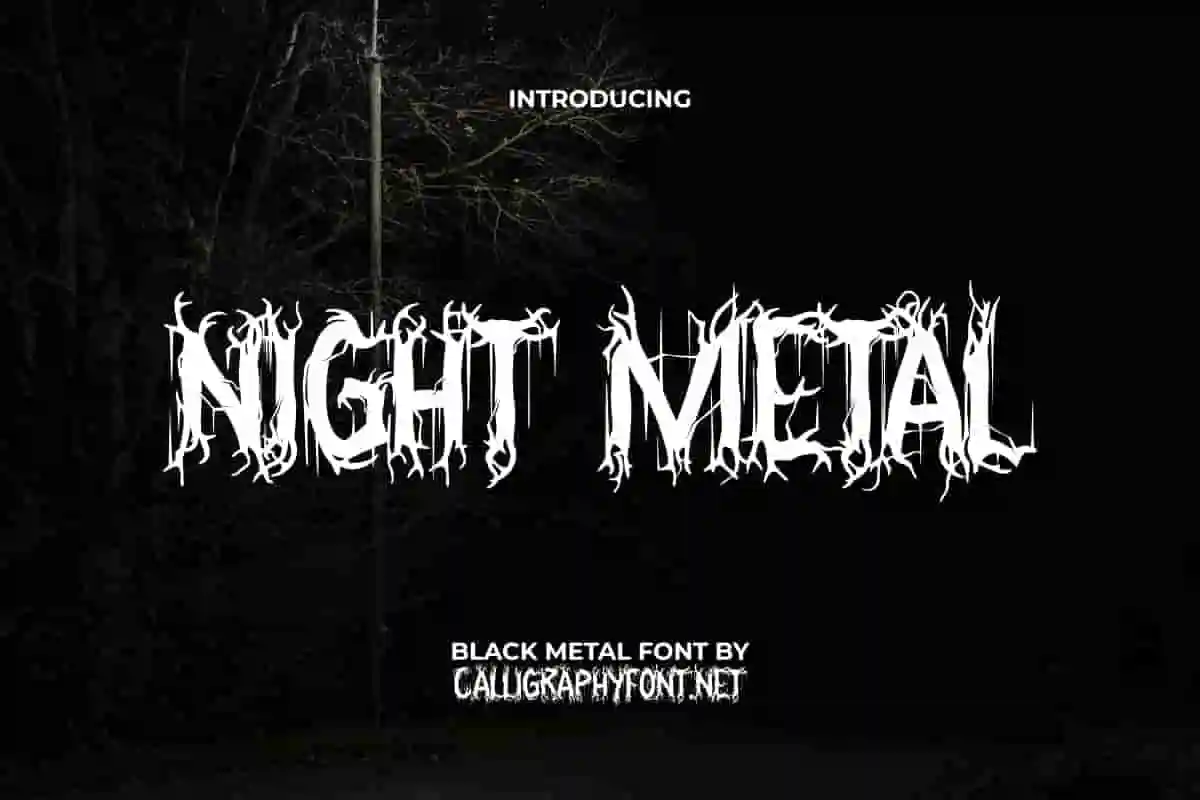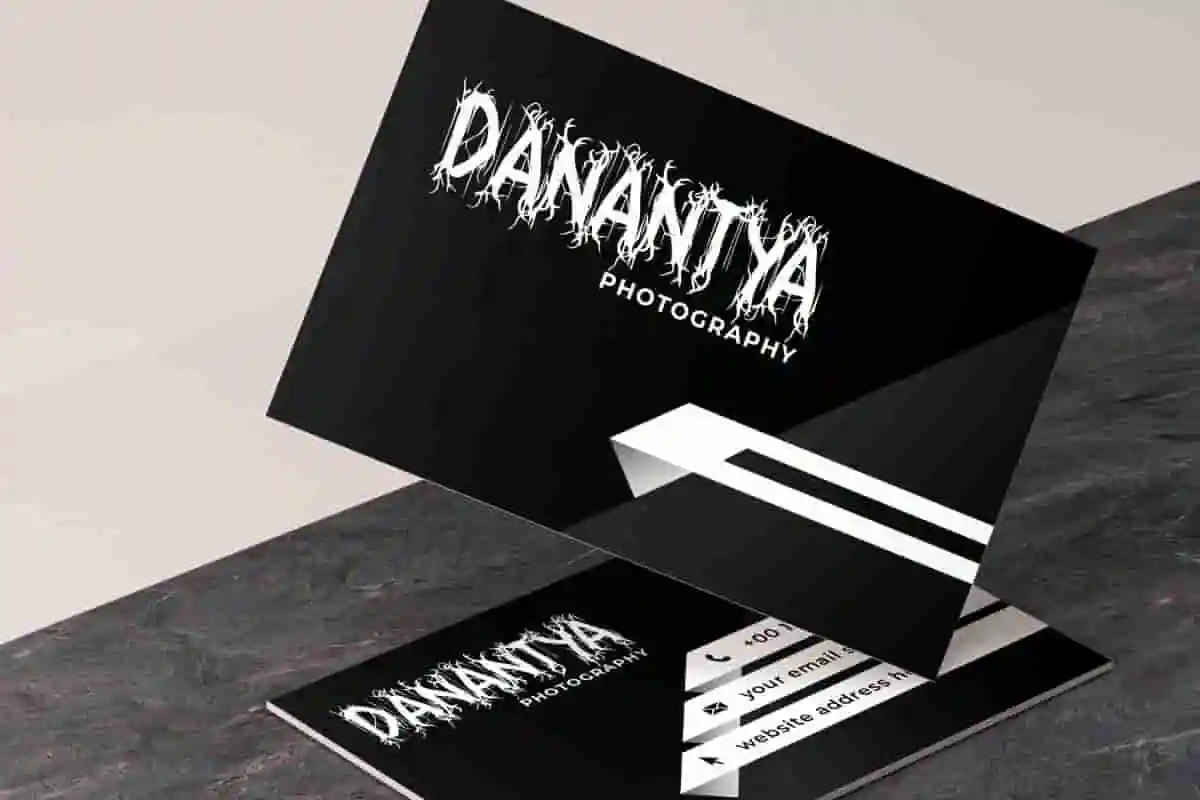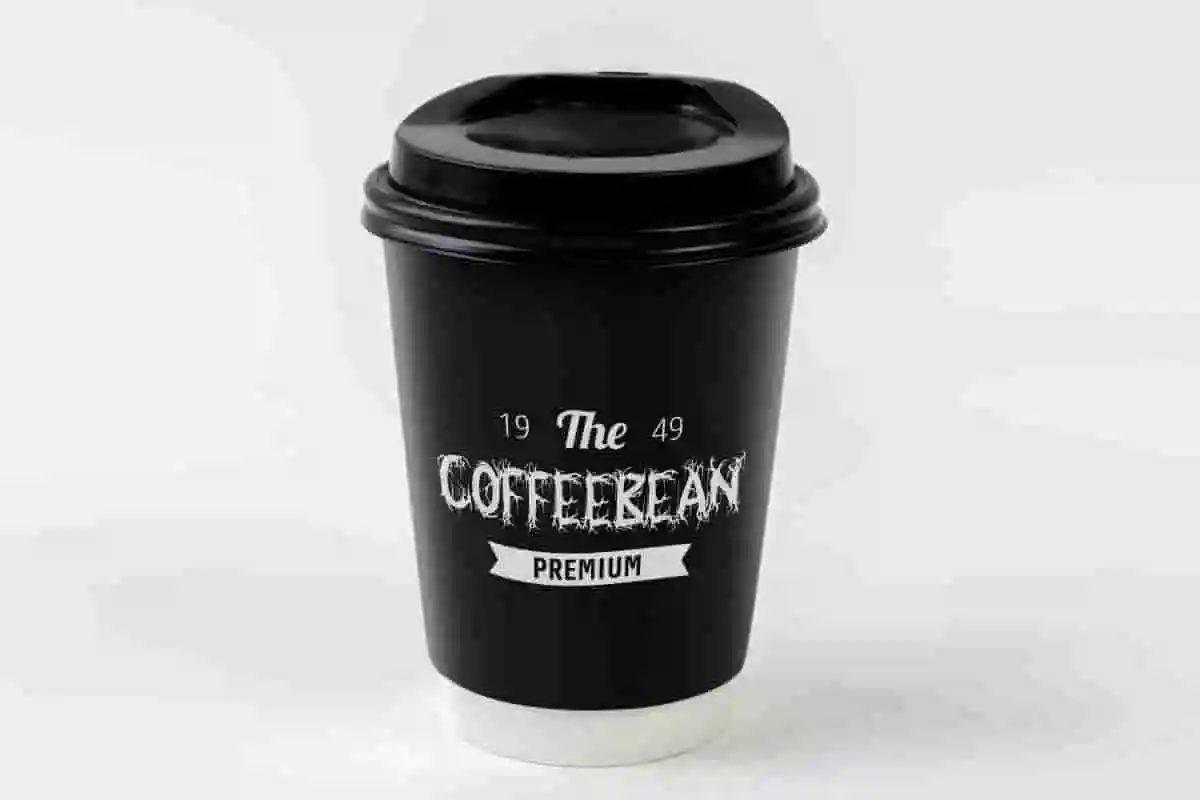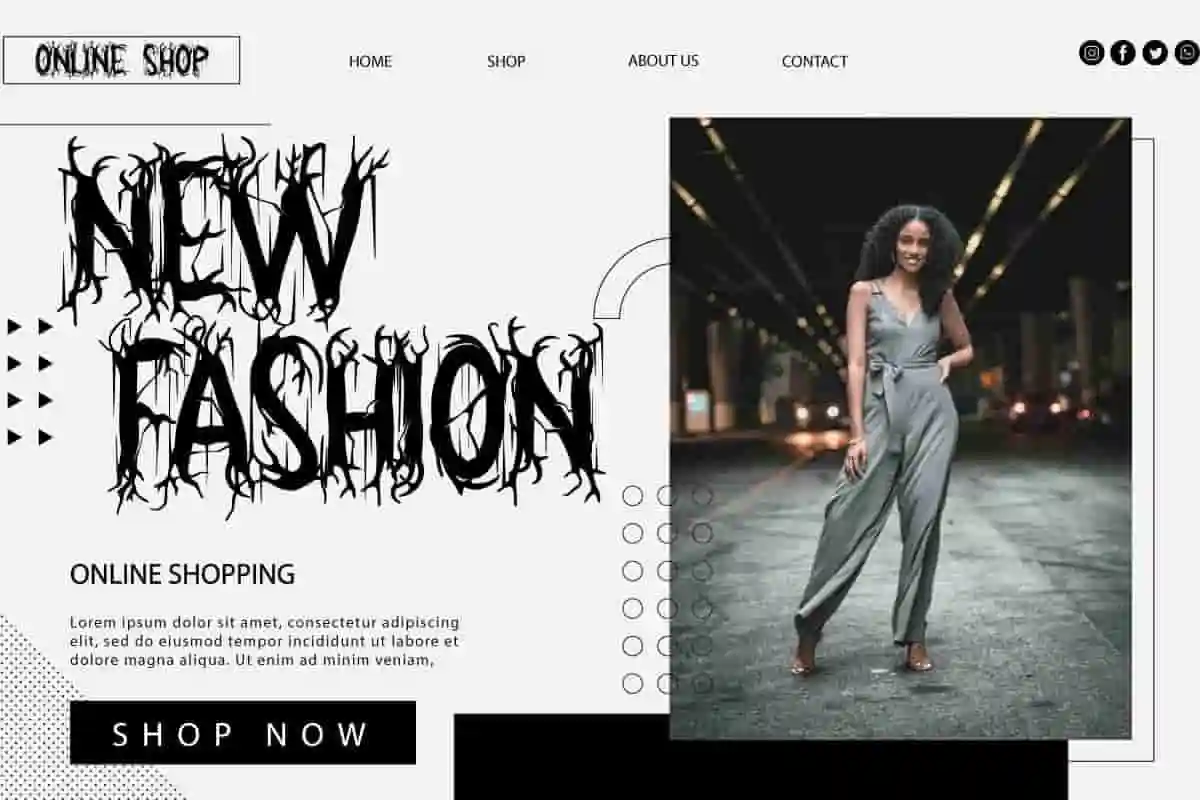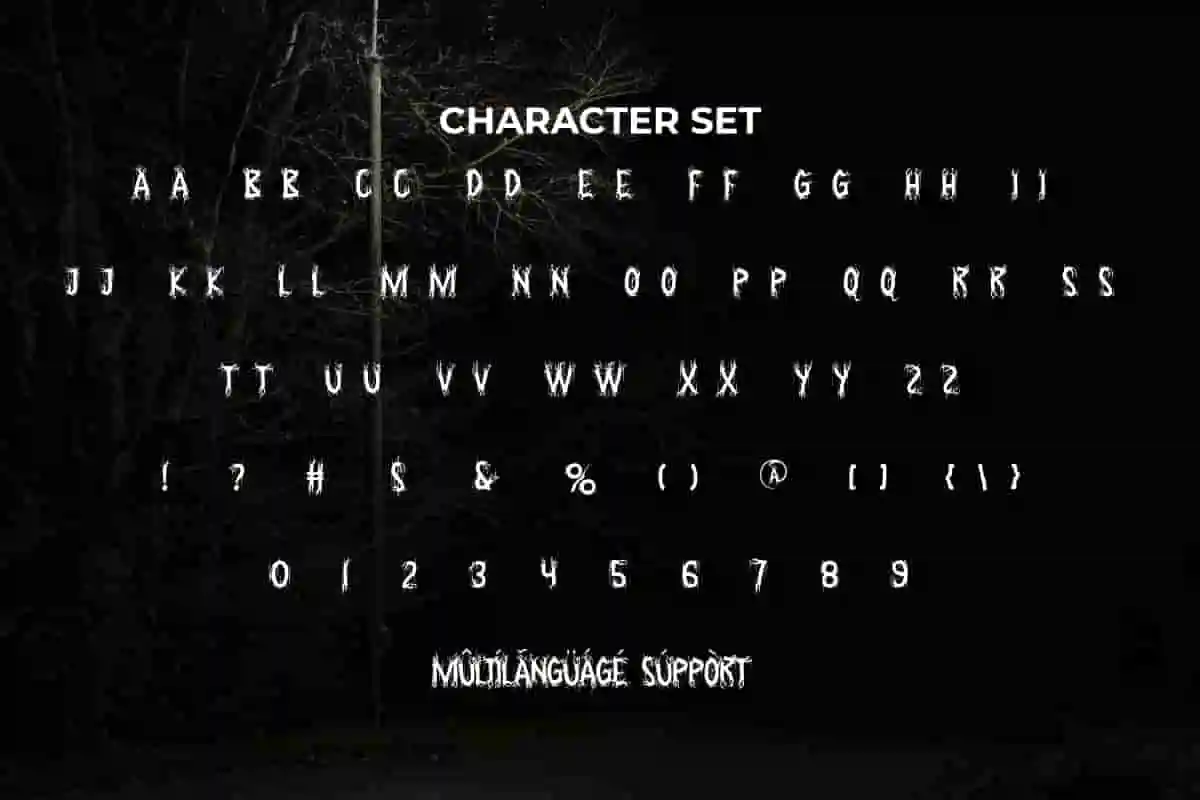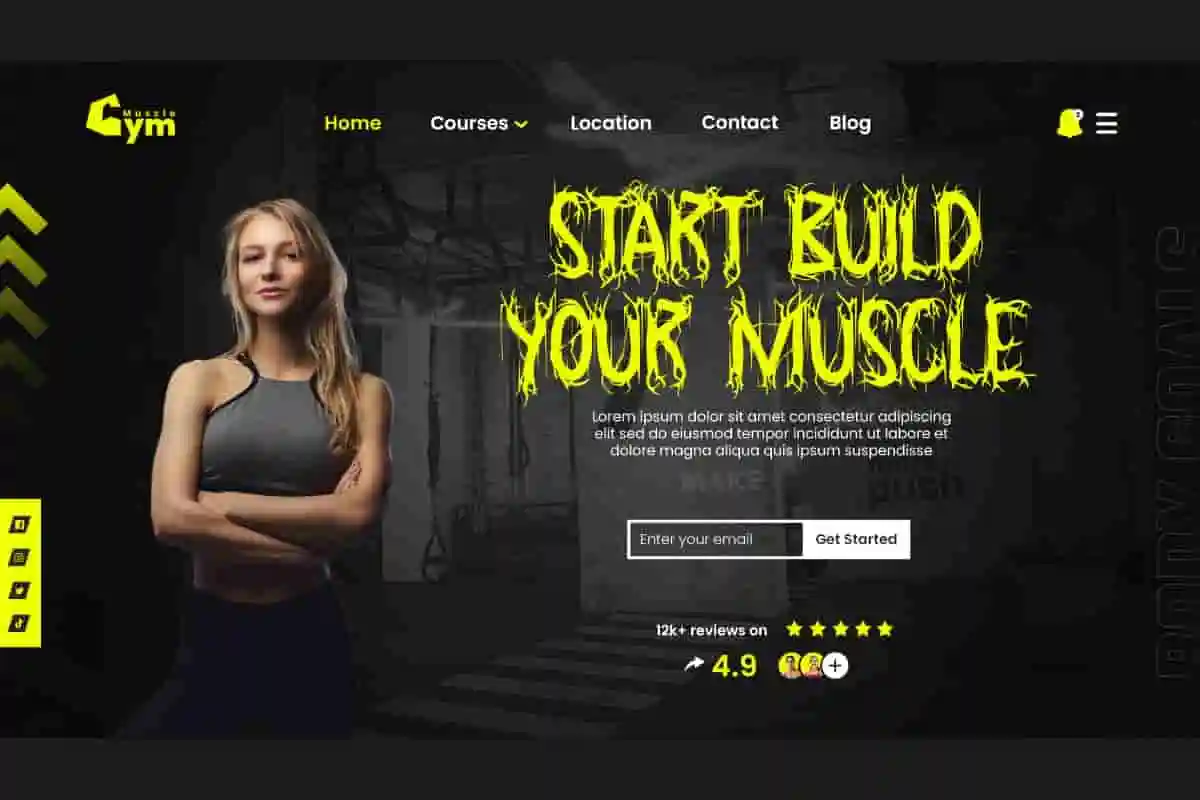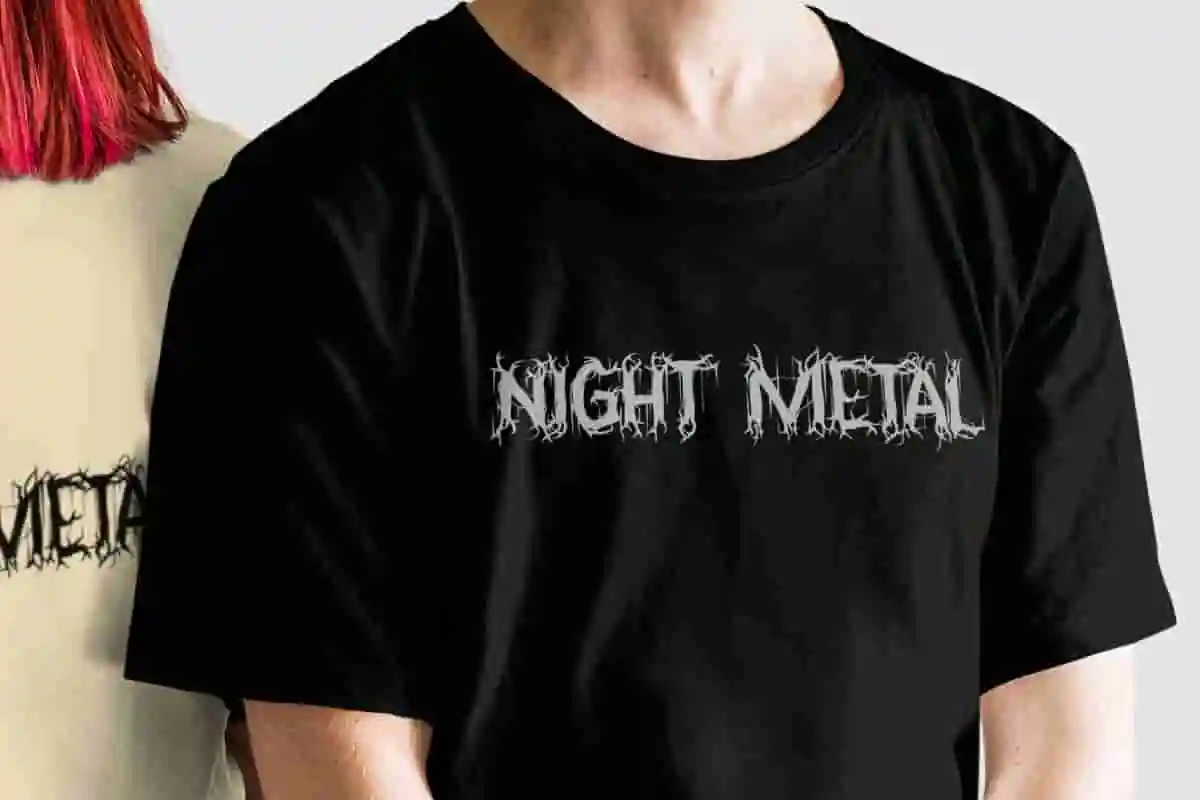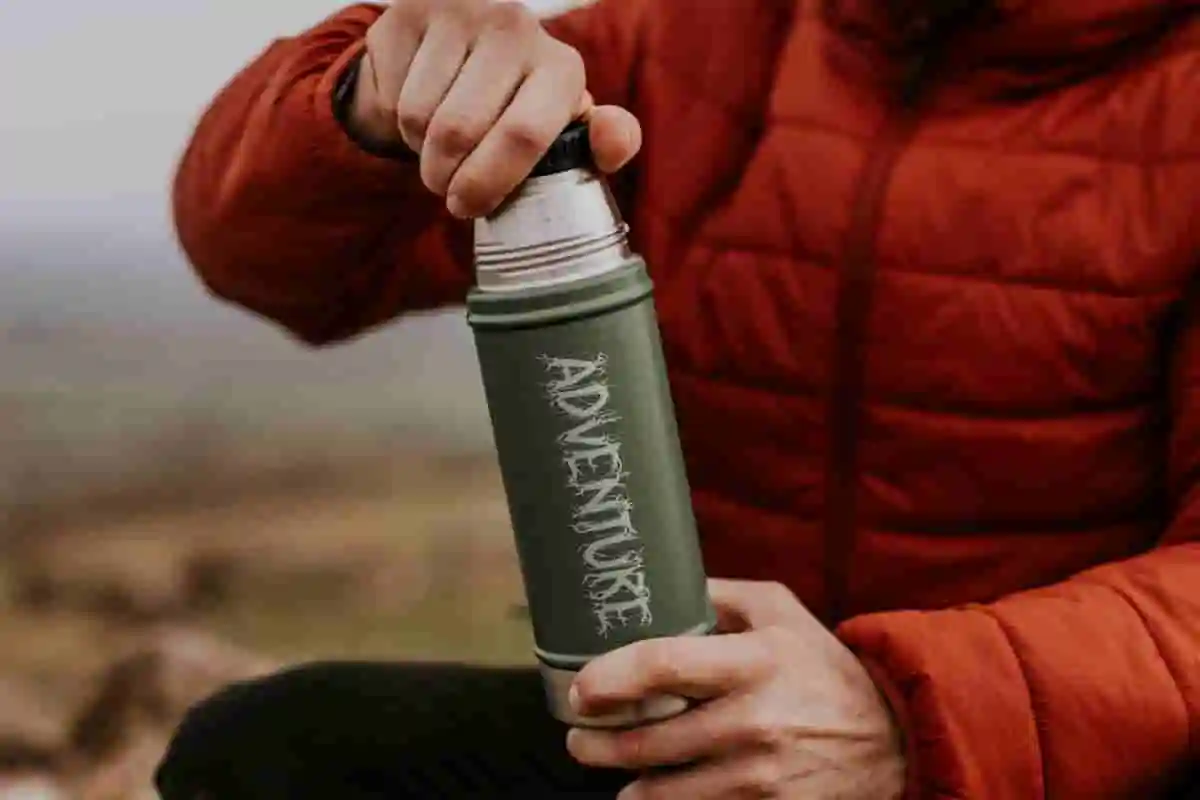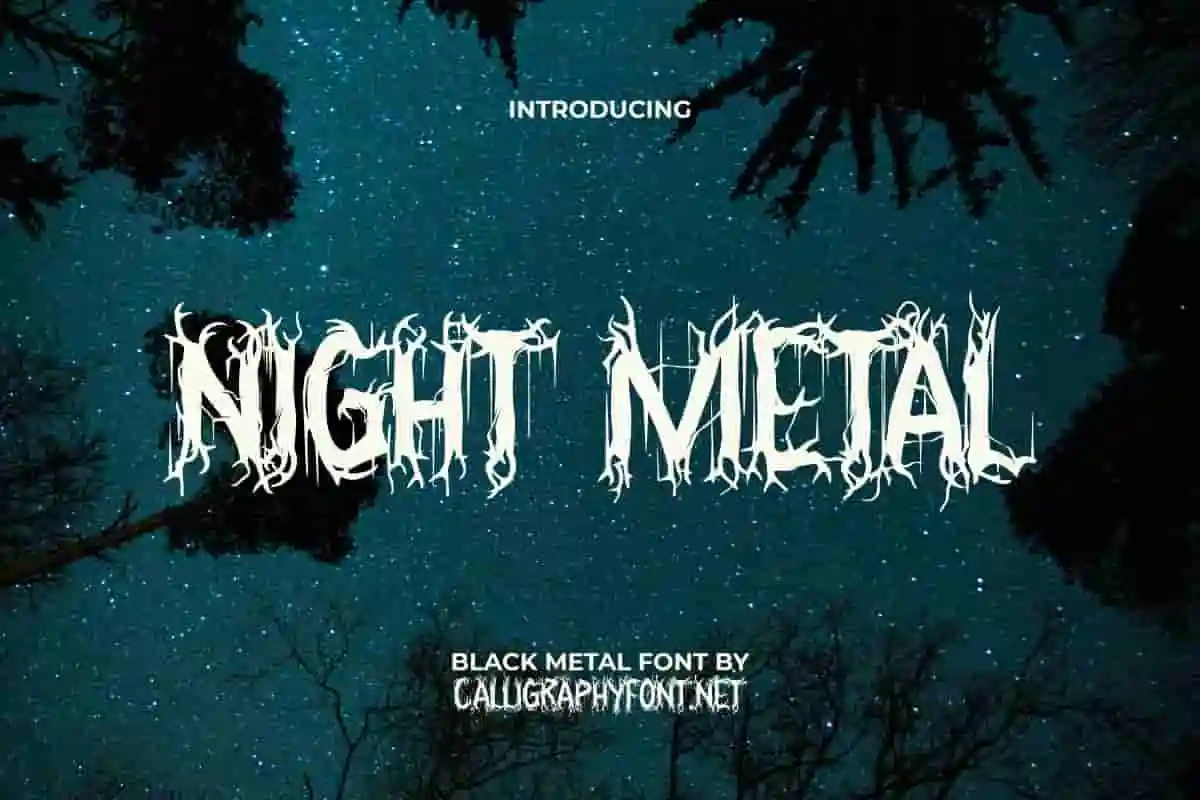
Night Metal Blackletter Font
Night Metal Font is a hardcore black metal spooky font with a creative and distinct style, highly detailed, and makes you scary when you look at it. It has undoubted quality in brand branding, retro-urban design, etc.
Night Metal Font is a hardcore black metal spooky display font with the feeling of a darkness theme. This is a black metal font that will be suitable for branding logos, covers, greeting cards, headers, invitation cards, label, logos, name card, posters, product packaging, sticker, t-shirts, thermos, visiting card, website, and other designs that require a sense of horror fonts.
Step into the world of striking design with Night Metal Blackletter Font—a typeface crafted for those who want to make a powerful impact. This unique blackletter font combines sharp gothic strokes with a modern edge, creating a dramatic and unforgettable style. Whether you’re designing album covers, posters, logos, or branding materials, Night Metal brings an aura of strength, mystery, and sophistication to every project.
Night Metal Blackletter Font is perfect for a wide variety of design projects. From heavy metal band logos and album covers to gaming titles, tattoo-inspired artwork, apparel branding, and striking posters—this font instantly adds a unique and unforgettable character to your work. It’s more than just typography; it’s a visual identity that communicates intensity, confidence, and creativity.
The font’s versatility allows it to shine in both print and digital formats. Whether you are working on editorial layouts, merchandise, marketing campaigns, or even social media content, Night Metal will set your designs apart. Its gothic roots bring a sense of history and depth, while its modern execution ensures readability and usability across platforms.
Night Metal Blackletter Font is a horror display font with intricate root string decorations that appear to give it the grimness that the metal genre demands. This font has an exclusive design and high quality. It will be ideal for use in cafeterias, clothing brands, events, fashion, film, fitness, graphic design, music, outdoor products, photography, tattoo business, and more.
Night Metal Blackletter Font includes a complete basic set in ALL CAPS for both Uppercase and Lowercase, Number, a large range of Punctuation, and Symbol. It is supported with multilingual characters and ready to use both on Windows machine or Mac with simple installations. It’s tested to work well in the Adobe Apps (Illustrator, Adobe InDesign, Adobe Photoshop) CorelDraw, and others. PUA Encode Characters means you can access all the characters easily – Fully accessible without additional design software.